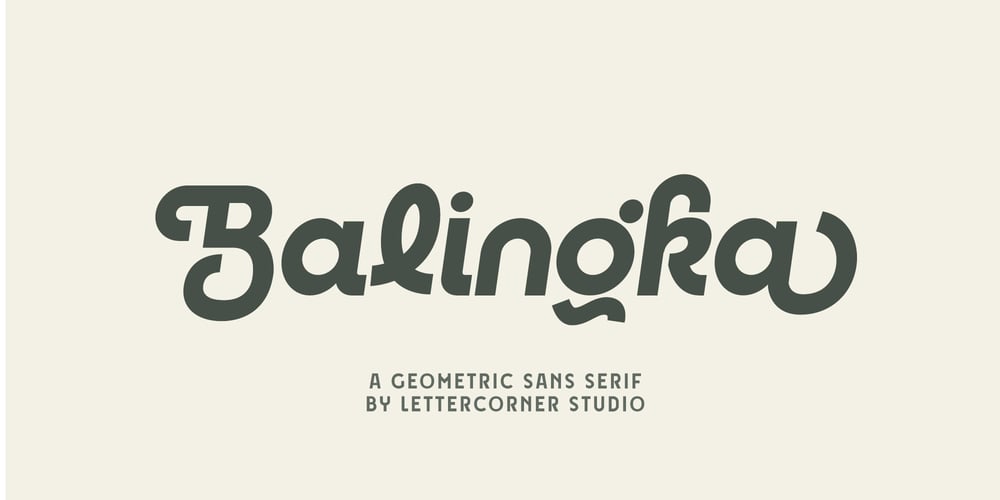
Balingka Font Family was designed by Muhammad Afif Ersya and published by Mevstory Studio. Balingka contains 2 styles and family package options. Balingka An Unique Modern Corporate Font that we created special for Professional and Modern branding needs that will give you more Unique look, with alternates in unique shape will be ready to add value of your brand. It so nice to leverage designer or product owner that need solutions to make their design look moreProfessional and modern. And specially for this font, We prepared any alternate characters to help you create unlimited variations for your creative needs.Balingka is a nagari in IV Koto District, Agam Regency, West Sumatra Province, Indonesia. Nagari Balingka is located in a strategic area. Nagari Balingka is also an alternative route to sicincin in Padang Pariaman and malalak in Agam Regency, West Sumatra.This font is inspired by the traditional Minangkabau carving art, namely “ducks returning to Patang” which can be seen from the “s” shape.